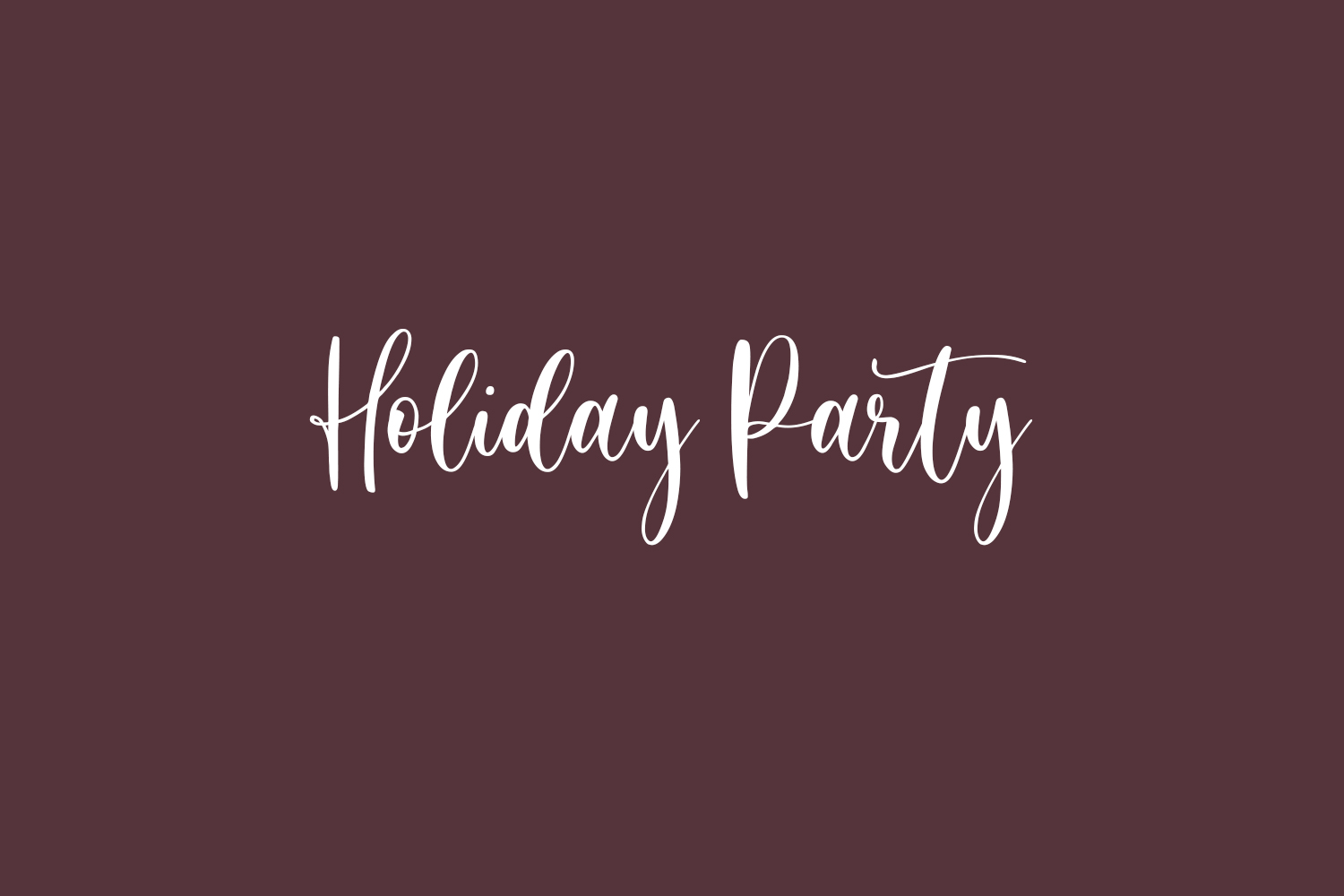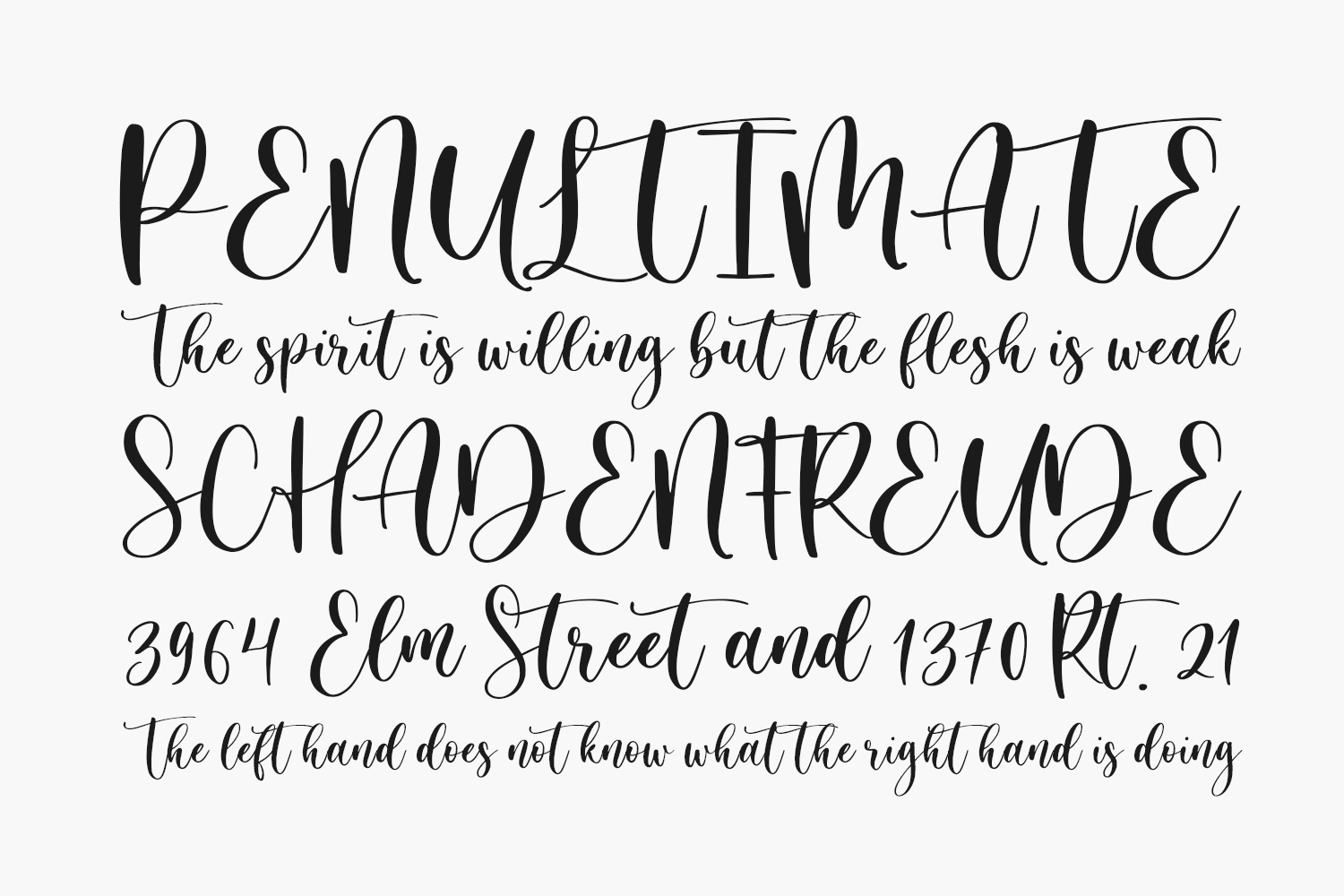
Holiday Party Free Font feels incredibly elegant and flowing. It looks stunning on wedding invitations, thank you cards, quotes, greeting cards, logos, business cards, and every other design which needs a handwritten touch. It features a varying baseline, smooth lines, gorgeous glyphs, and stunning alternates. Holiday Party Free Font was designed by Sronstudio and is free for personal use only. Please purchase the full version for commercial use.